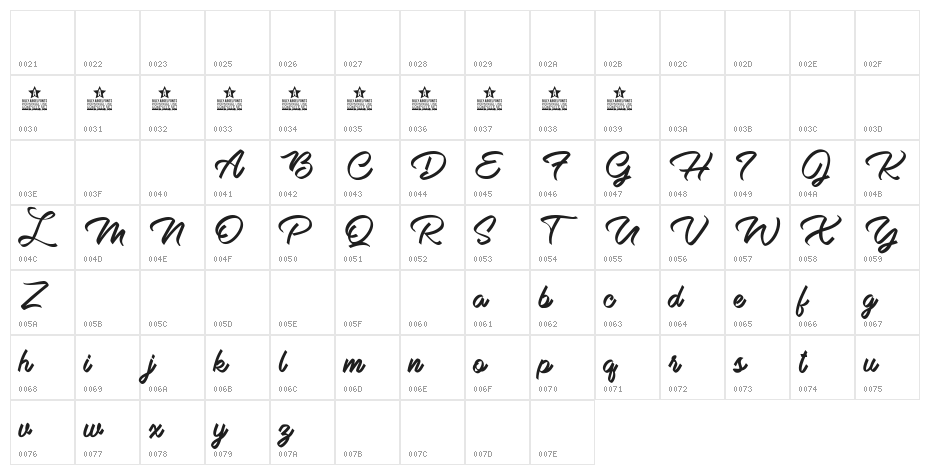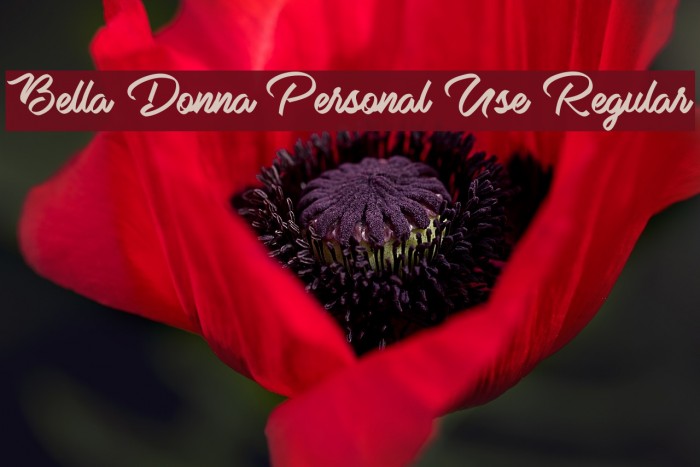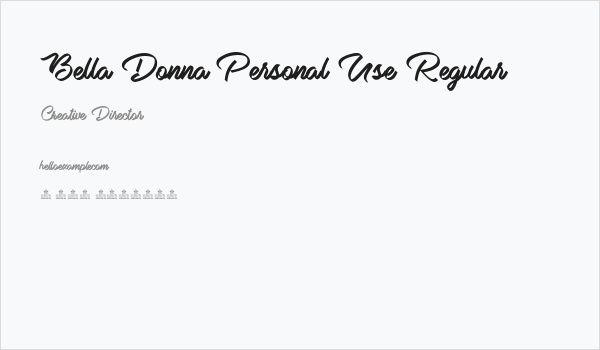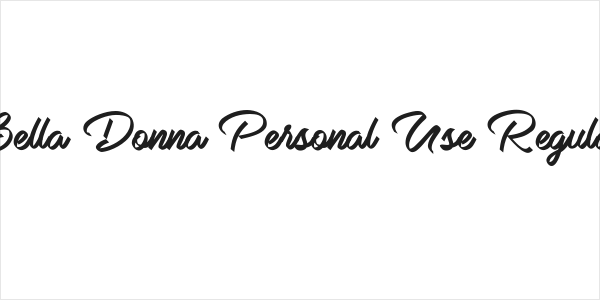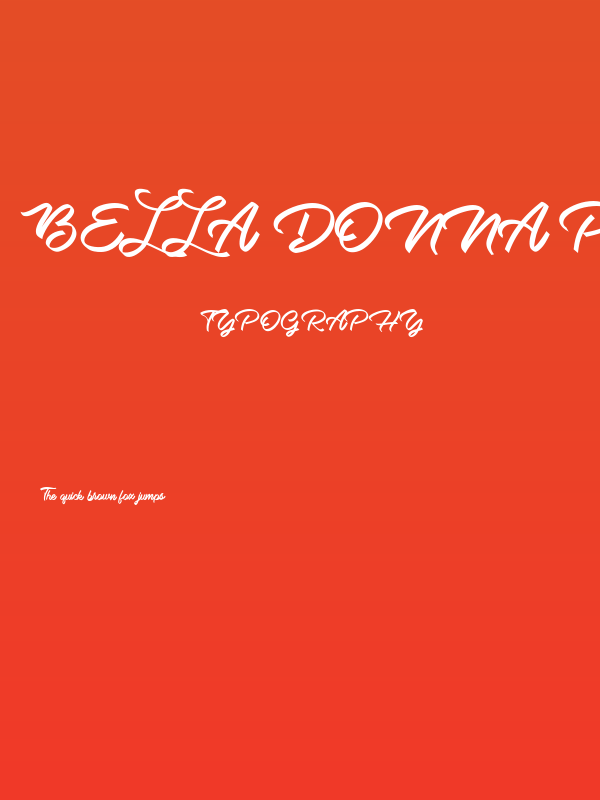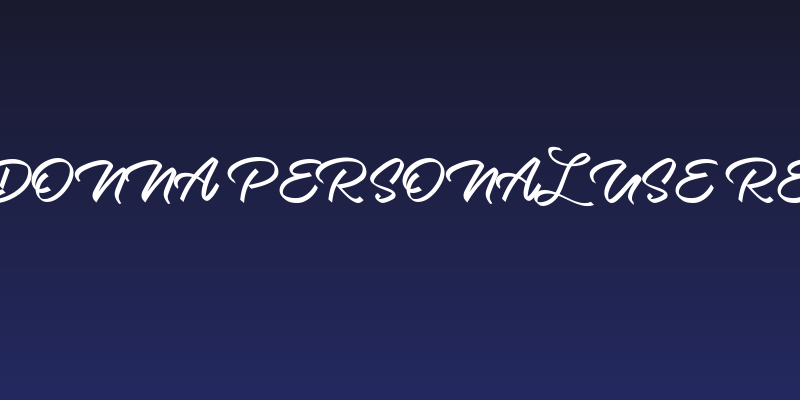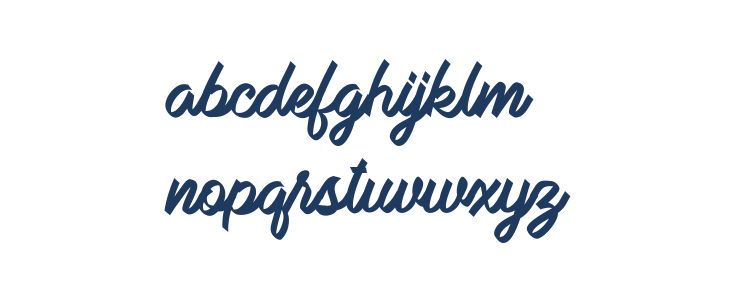
Bella Donna Personal Use Regular Font
Bella Donna Personal Use Regular Description
This font features a flowing, cursive style that exudes elegance and sophistication. The uppercase letters are characterized by their sweeping curves and fluid connections, giving them a sense of movement and grace. The lowercase letters maintain this fluidity, with a slightly bolder appearance that enhances readability while retaining the script's charm. The numbers and special characters are designed to match the overall aesthetic, ensuring a cohesive look across all text. This font is perfect for projects that require a touch of class and personality, such as invitations, branding, and decorative headings.
| Overall Style | Elegant, Decorative |
| Use Case | Headlines, Invitations, Branding |
| Proposed Projects | Ideal for wedding invitations, personal branding, decorative headings, and elegant signage. |